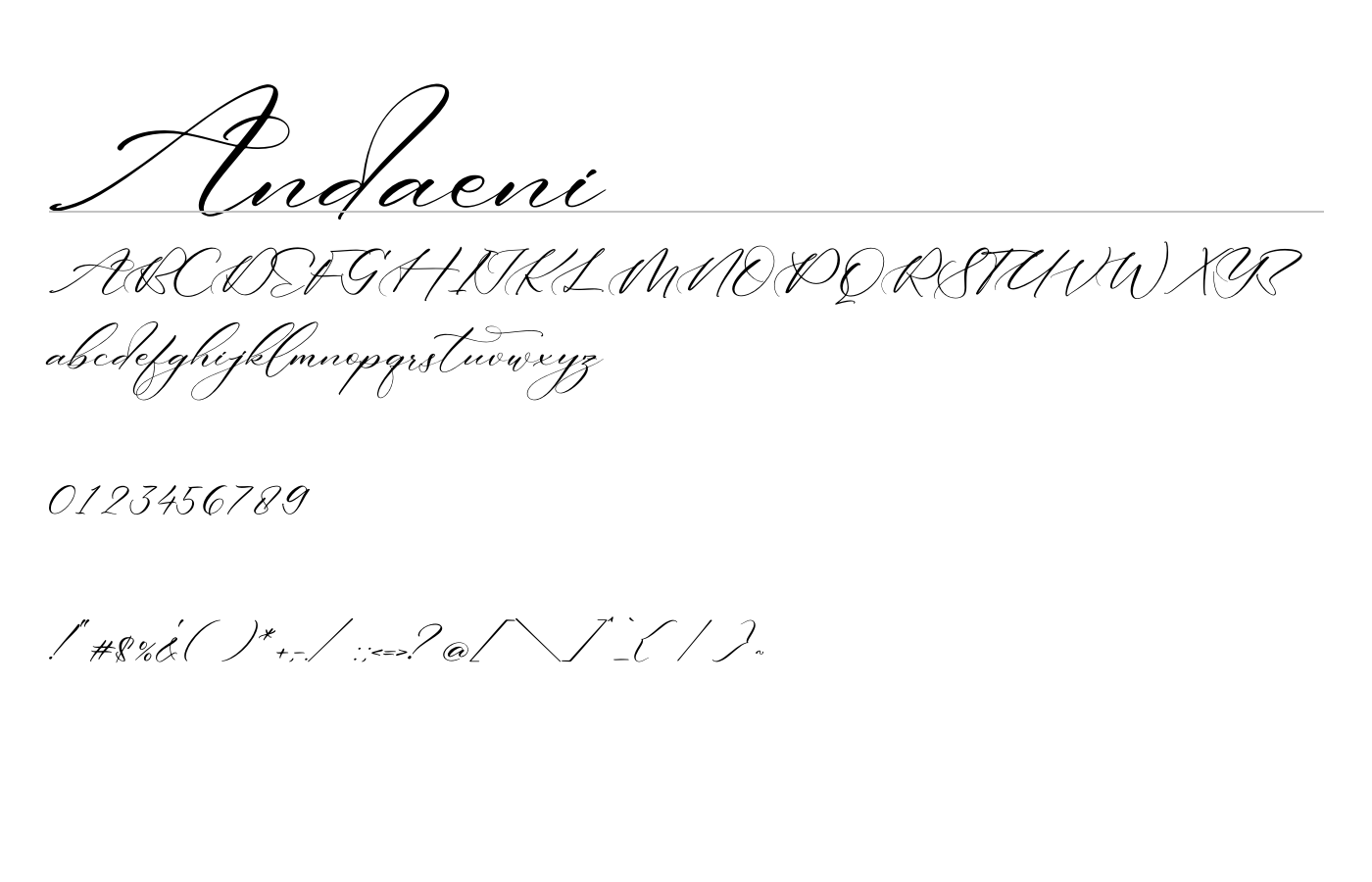
Andaeni is an elegant, delicate script font featuring fine, flowing strokes with graceful flourishes that evoke a sophisticated and romantic feel. Its high-contrast, calligraphic lines and airy spacing make it perfect for luxury branding, wedding invitations, and stylish editorial headlines where a refined, personal touch is desired.
Andaeni Font
About Andaeni Font
| Font family | Andaeni Font |
| Designer | Nanang Jamaludin |